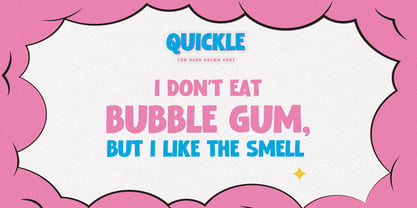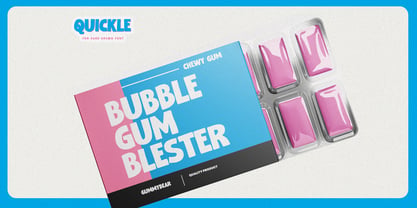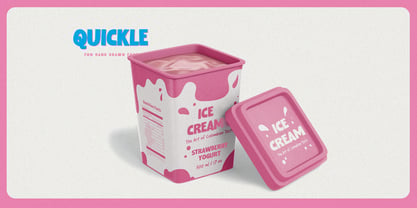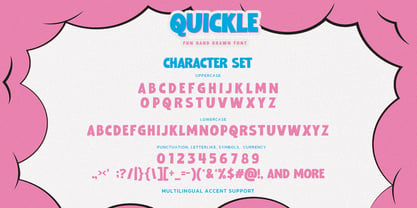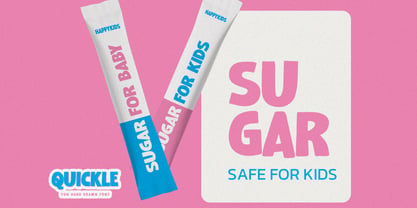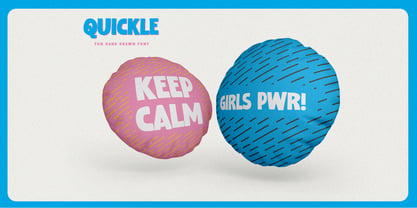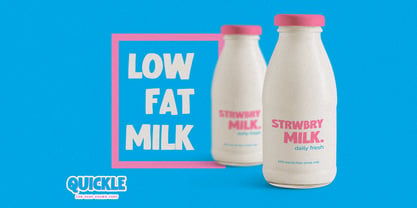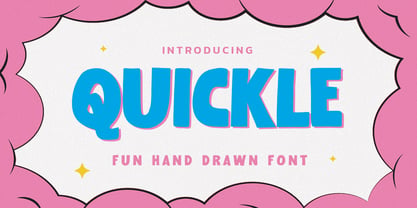
Quickle
von Gassstype
Die Schriftfamilie Quickle wurde von Abdul Malik Wisnu entworfen und von Gassstype veröffentlicht. Quickle enthält 1 Stile. Mehr über diese Familie
QUICKLE – A fun hand-drawn font featuring a modern style and dramatic movement, designed to be written casually and quickly. It is ideal for labels, posters, and project designs, providing a modern, authentic, and fun aesthetic. Perfect for a variety of applications including quotes, branding, packaging, greeting cards, websites, photography overlays, signs, scrapbooking, tags, and much more! This is why QUICKLE boasts a textured and authentic characteristic, giving it a more natural appearance.
Designer: Abdul Malik Wisnu
Foundry: Gassstype